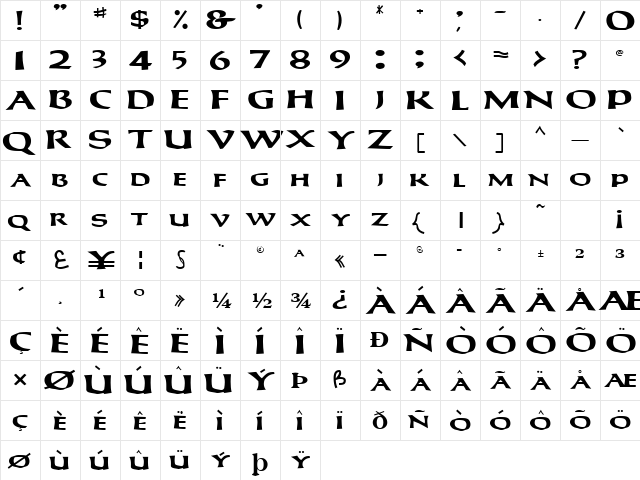
Cavil Regular
Design Context for Cavil Typeface
Cavil takes a measured approach to typography — its balanced proportions and neutral character make it a reliable workhorse for both digital and print work.